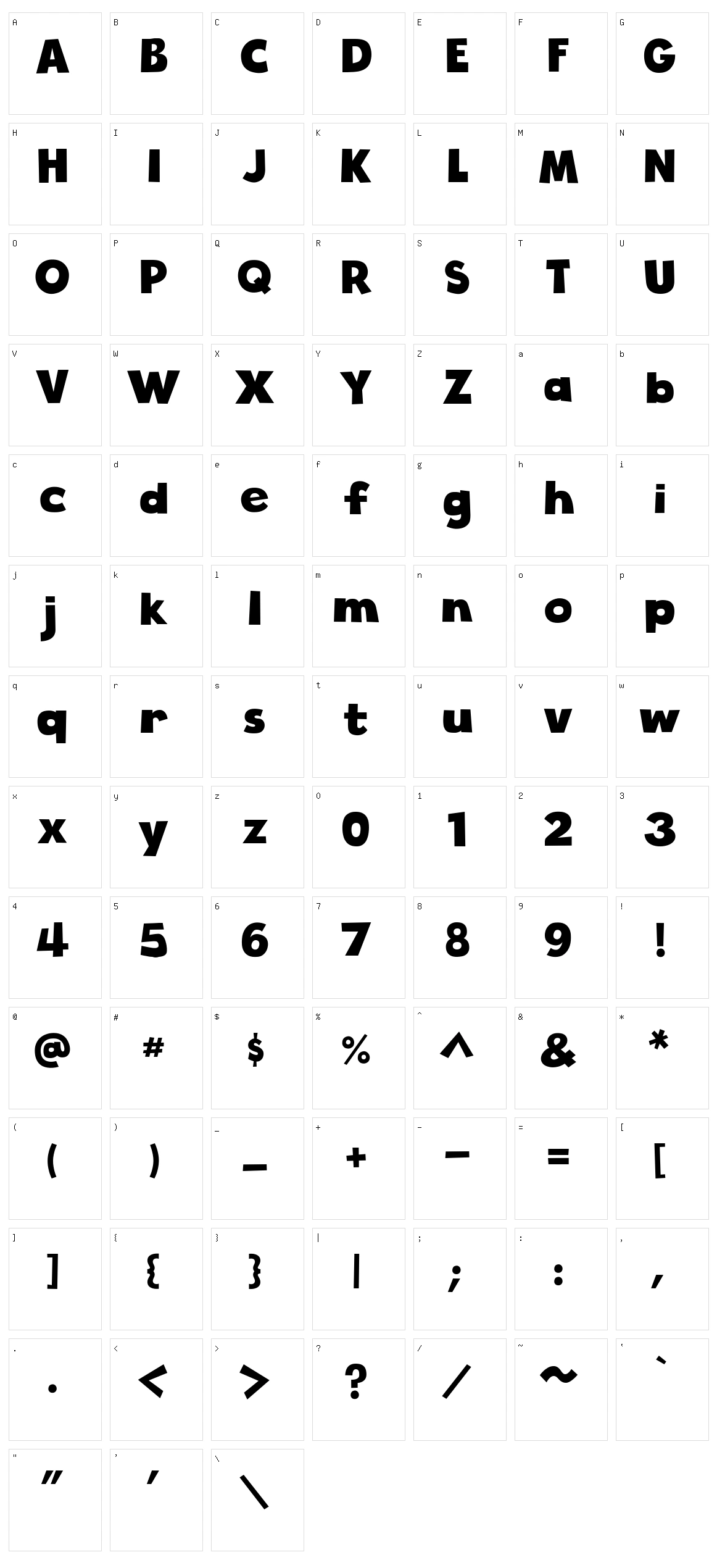
The free font Cloudy With a Chance of Love is carefully designed by Zack VerVynck, showcasing a thoughtful balance of creativity and usability and falls under the Cartoon font style. When you download the ZIP file, it contains only 36.65 KB of font files, making it lightweight and quick to download. Please review the license details below to understand permitted usage and distribution rights. If license information is not available, we recommend using this font for personal projects only or contacting the author directly for commercial usage permissions.